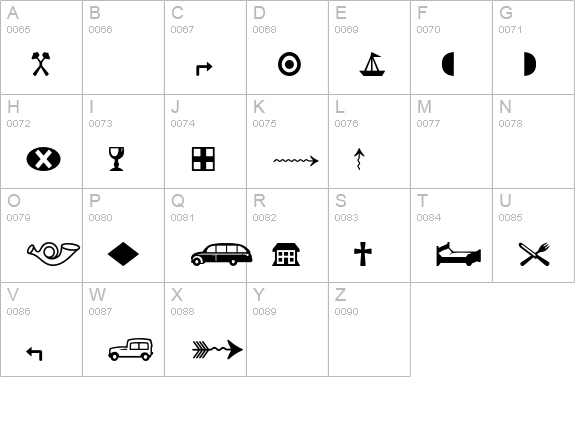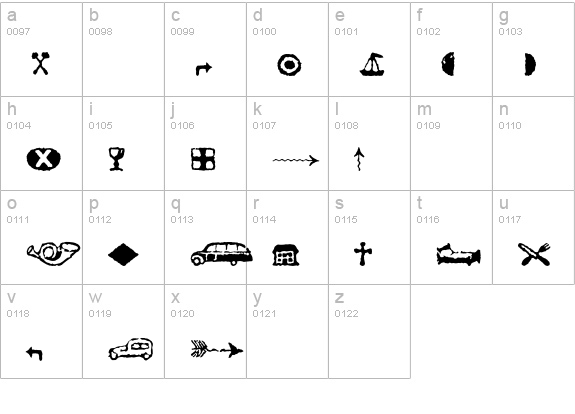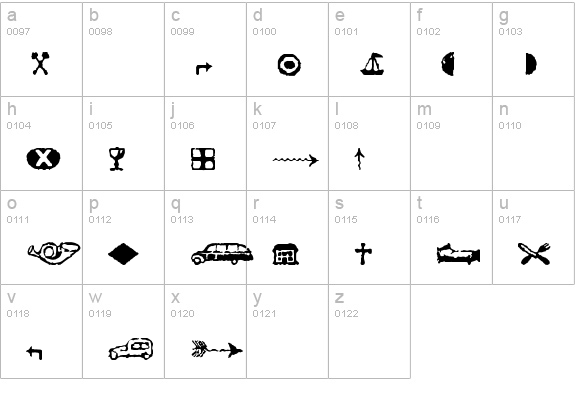
Pullman-Symbol Font Details
The Pullman-Symbol font is a versatile and modern typeface that brings a unique touch to any design project. With its clean lines and sleek aesthetic, this font is perfect for a wide range of applications, from branding and advertising to web design and social media graphics. What sets Pullman-Symbol apart is its collection of stylish symbols and icons that add an extra element of creativity to your work. Whether you're looking to enhance a logo, create a standout poster, or add visual interest to your website, Pullman-Symbol has you covered. Best of all, Pullman-Symbol is available for free download at FontsMarket.com, making it accessible to designers of all levels. Don't miss out on the opportunity to elevate your designs with this fantastic font!